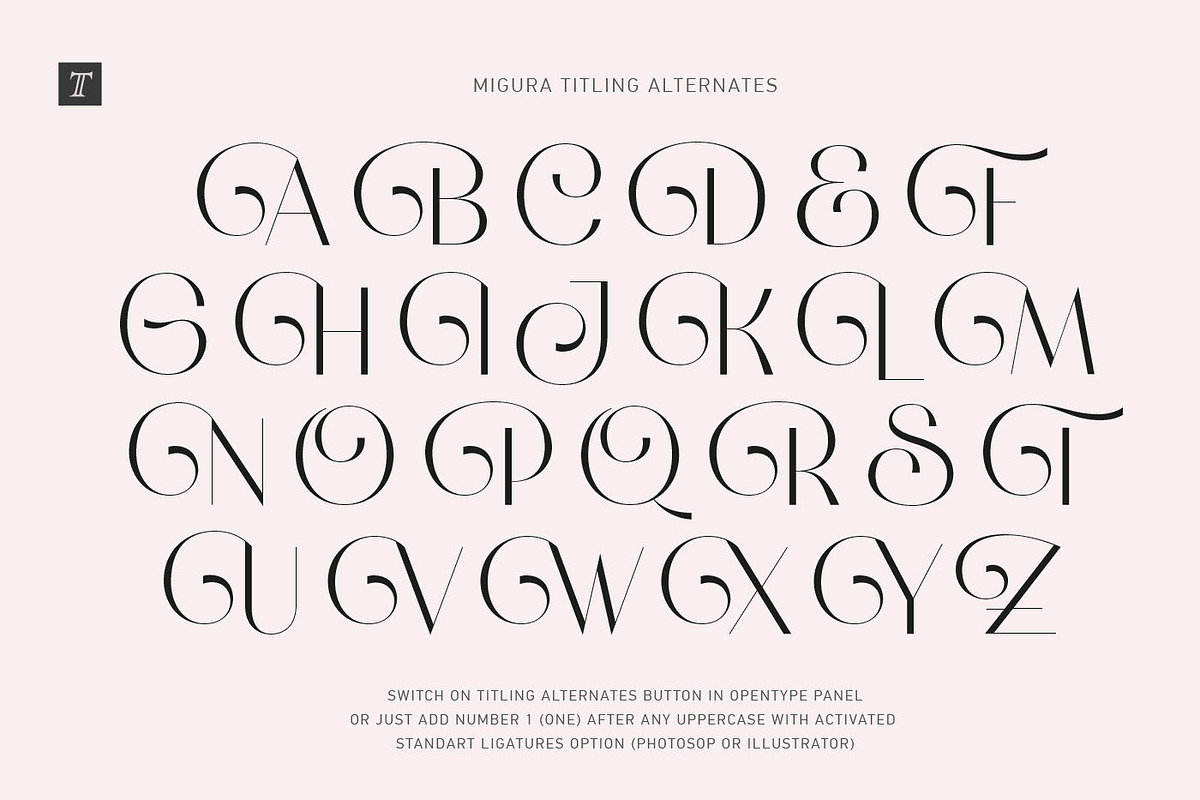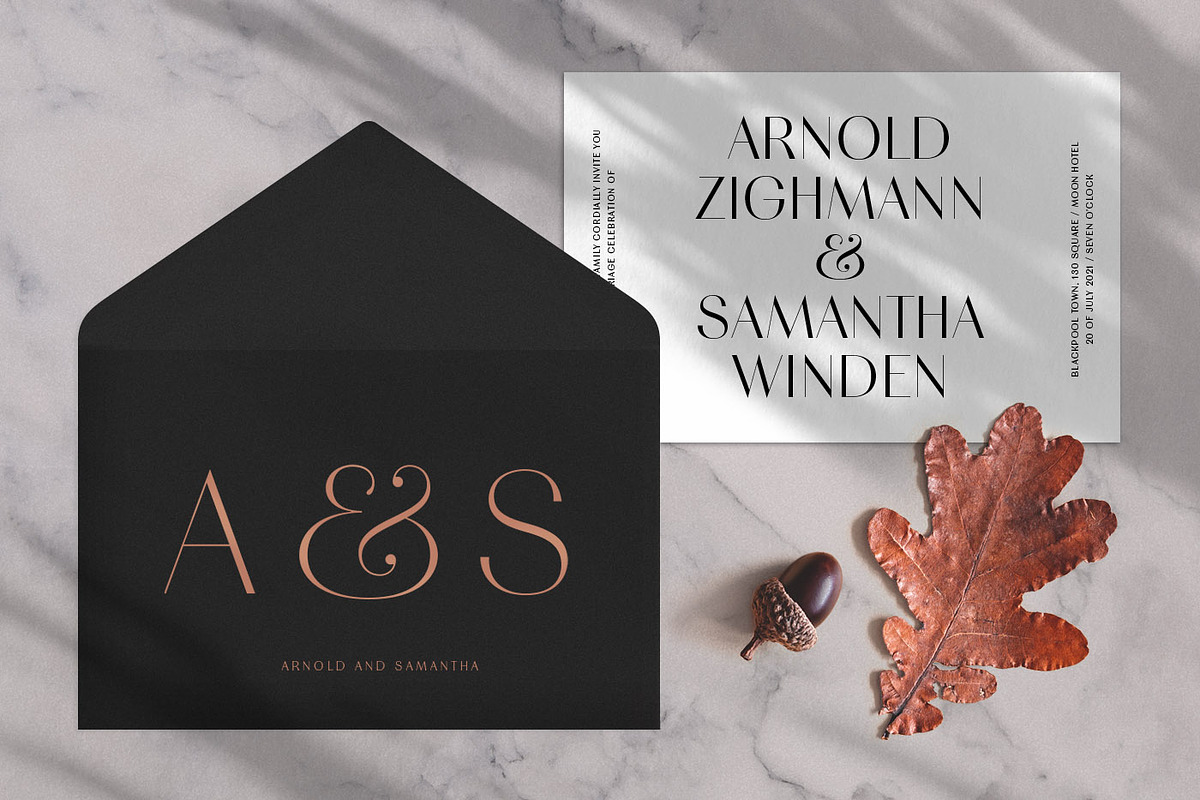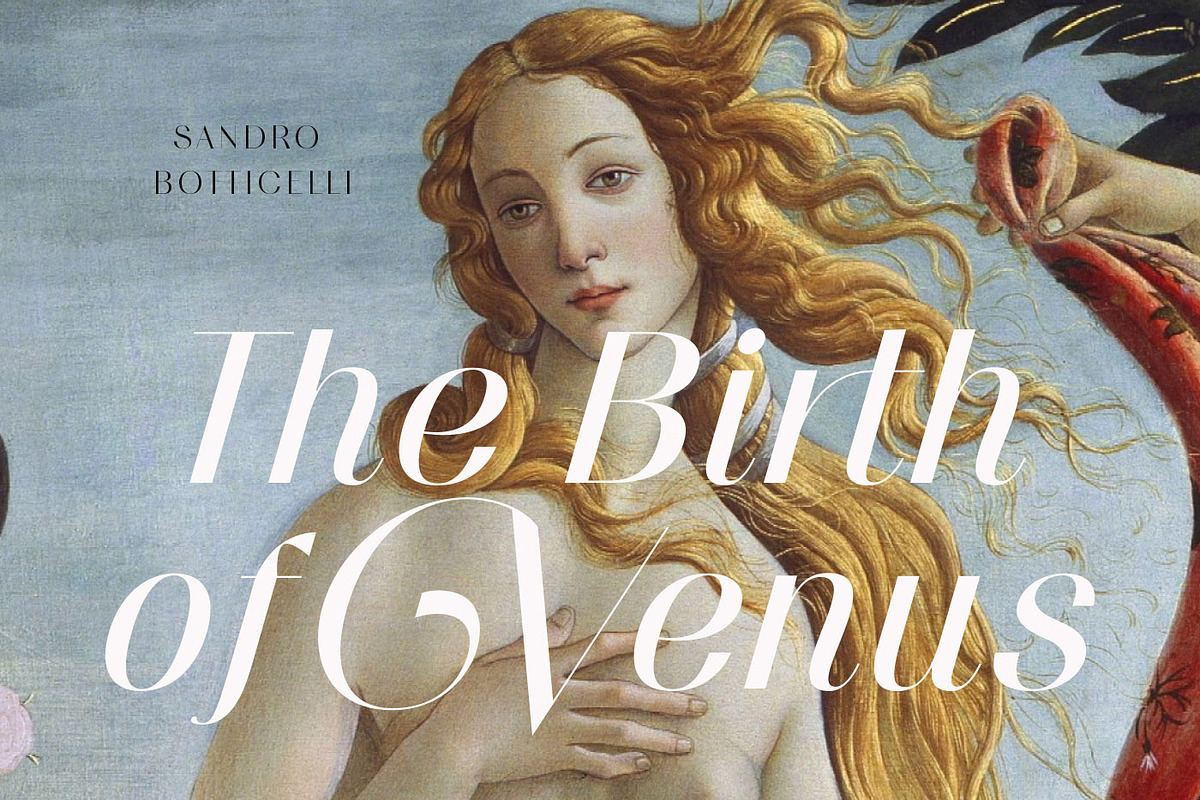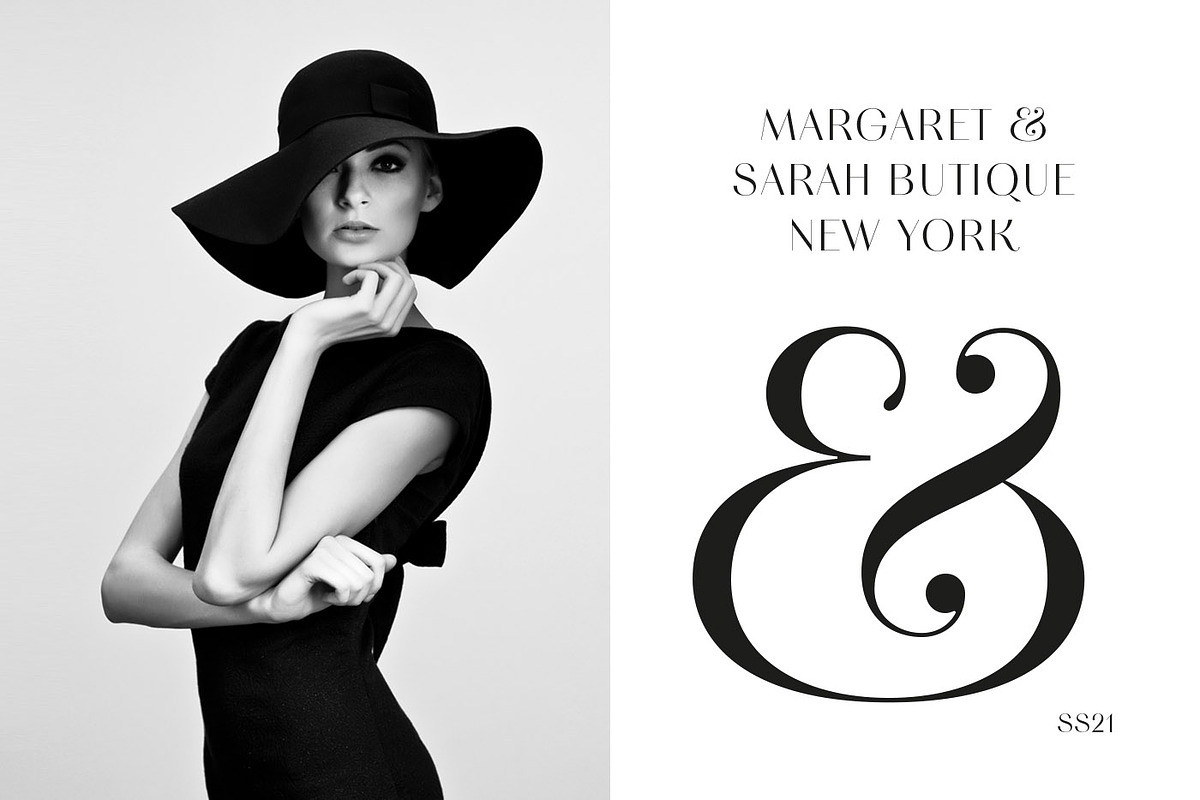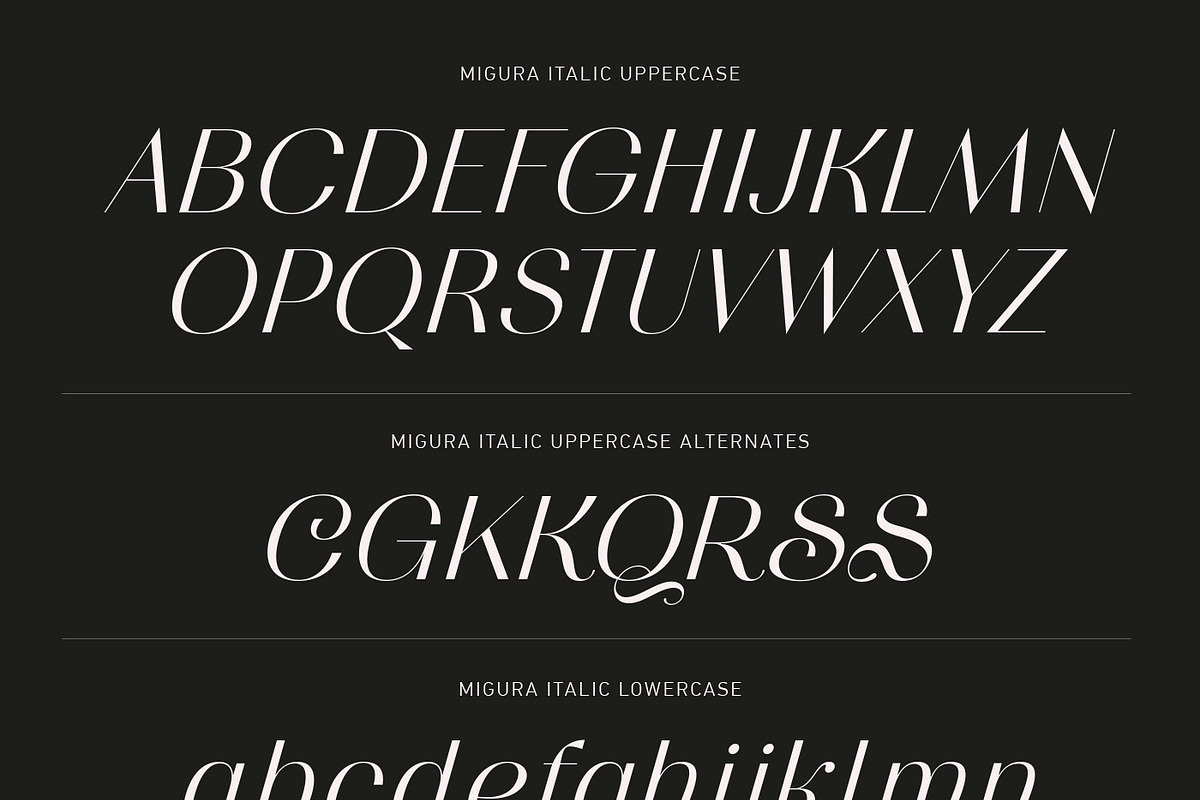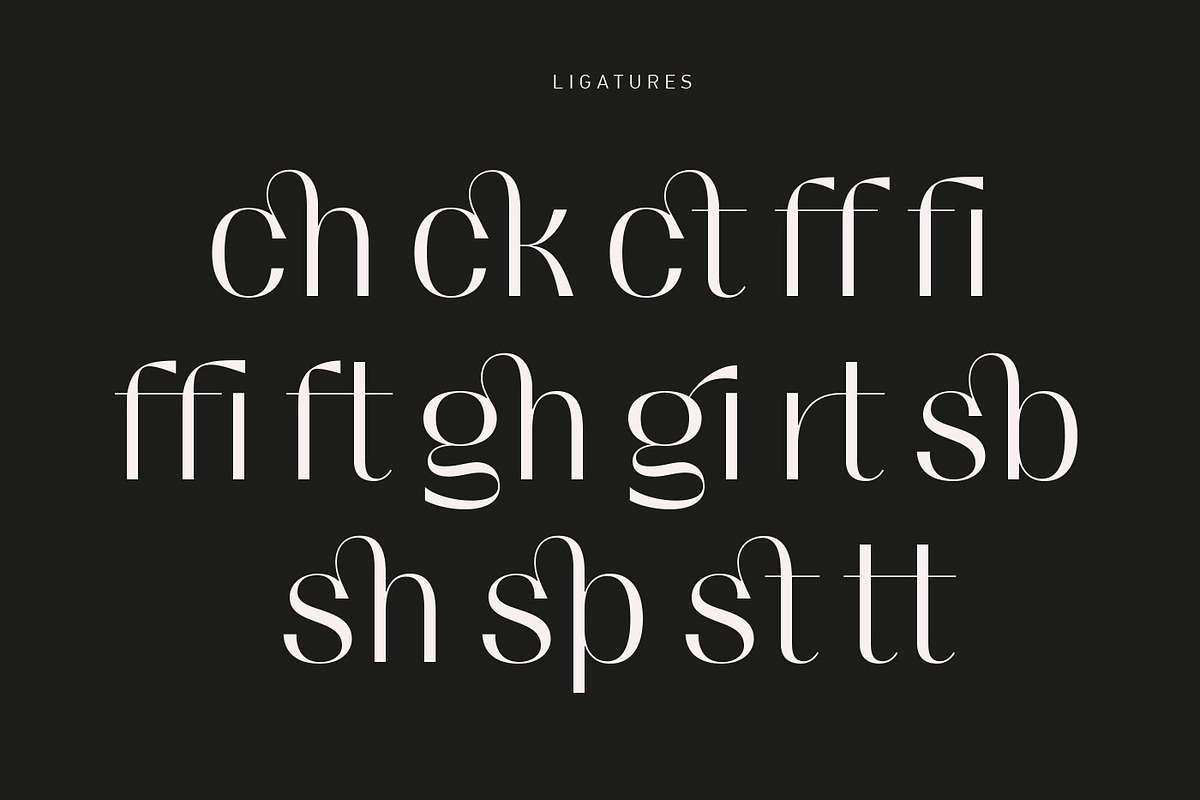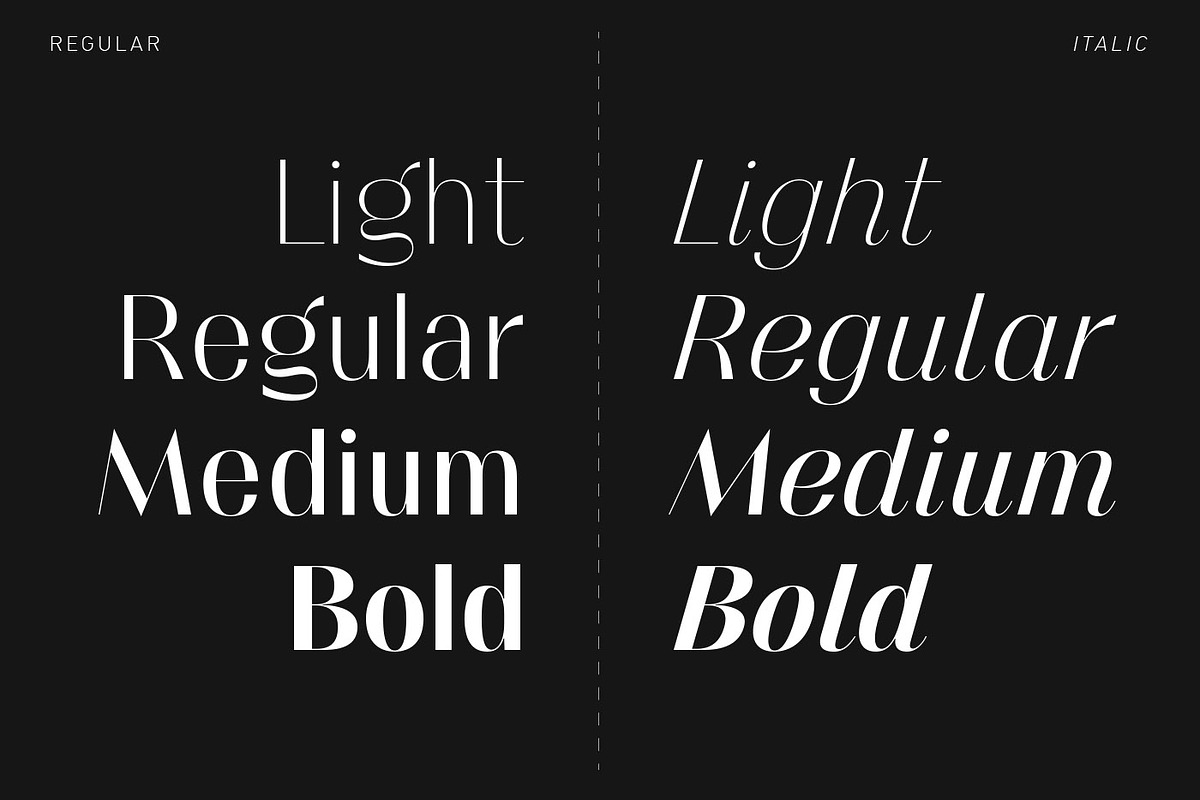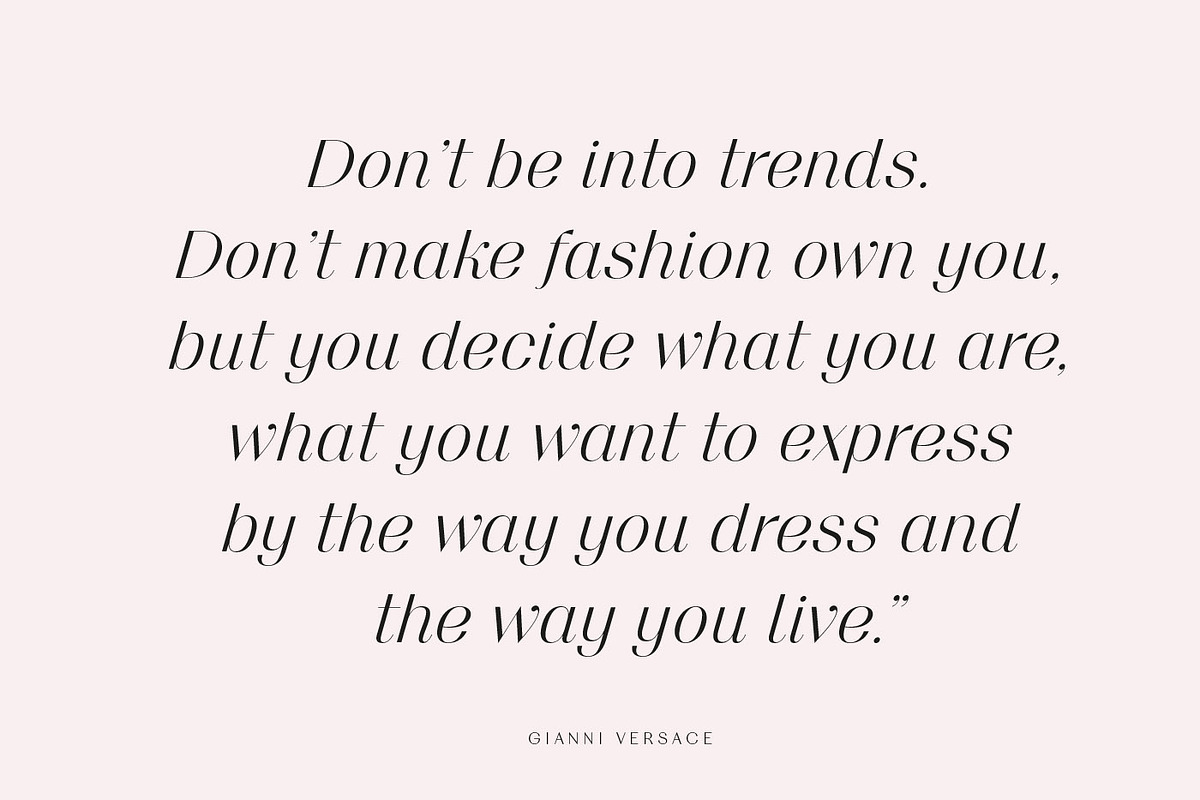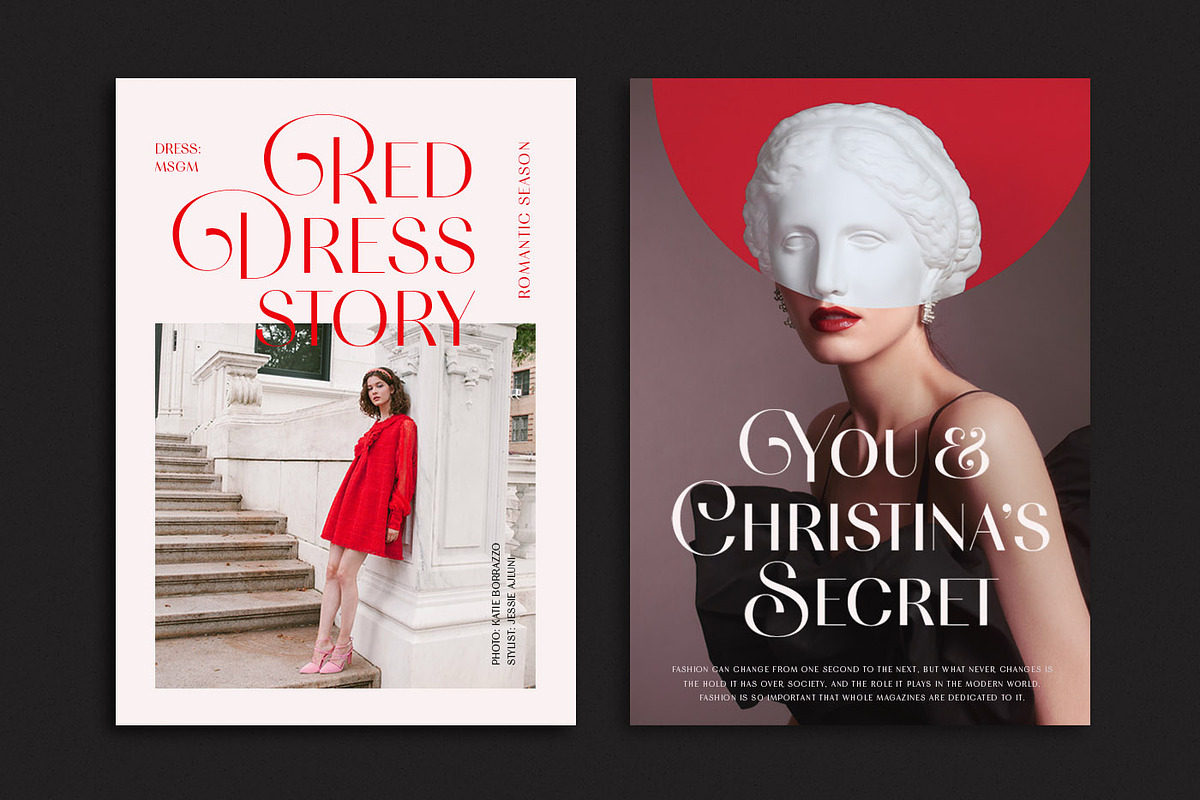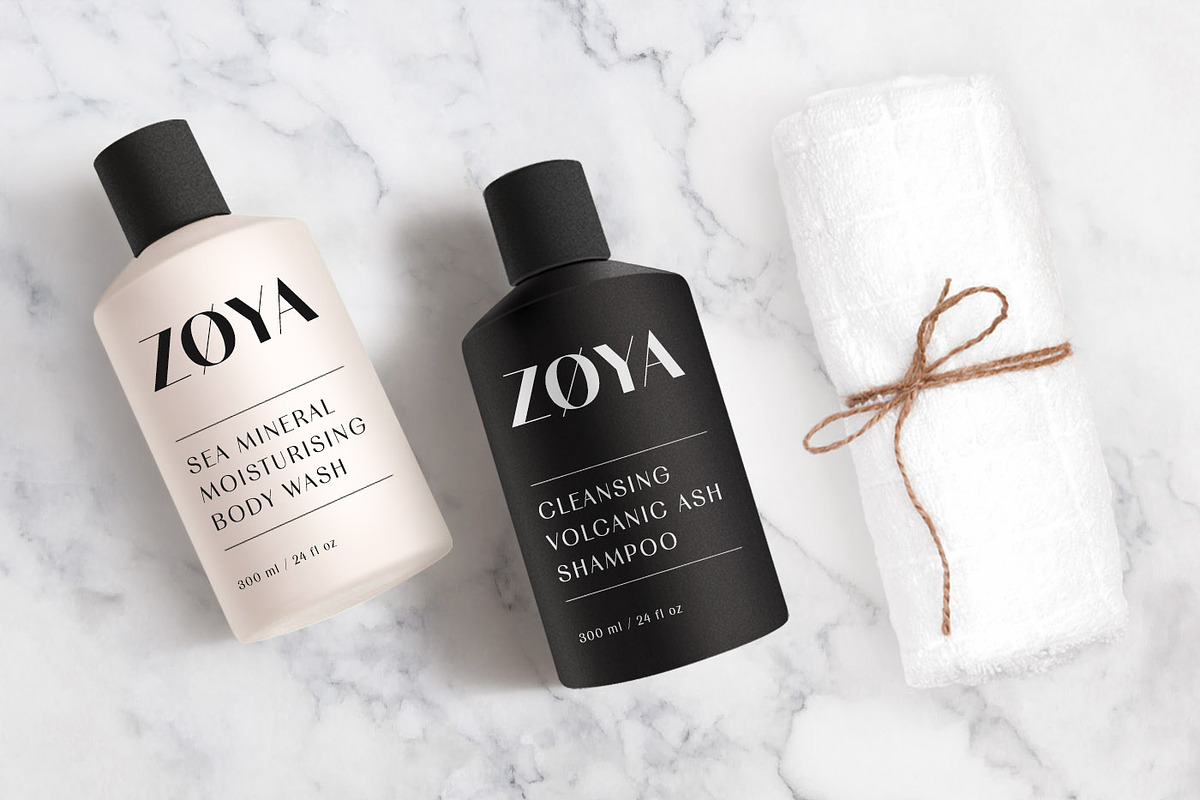
Migura Sans Font Family
Migura is a high-contrast sans serif type family inspired by the world of fashion and beauty. Its clean, geometric letterforms convey elegance and luxury, making it ideal for refined and stylish designs.
The family includes a range of styles from Light to Bold, plus matching Italics, allowing for versatile use. In addition, Migura features a variety of alternate characters, ligatures, and decorative Titling Alternates to enhance your typography.
You can see many examples of how this font can be used. Migura looks stunning in large titles, magazine layouts, branding, logos, posters, wedding invitations, romantic cards, and more.